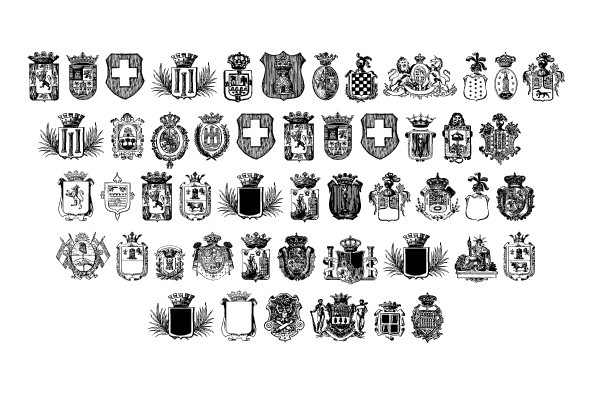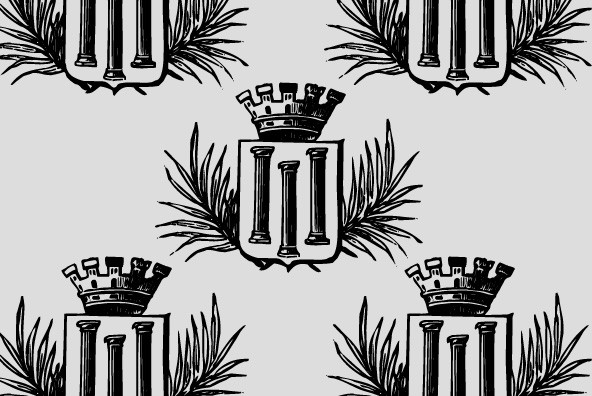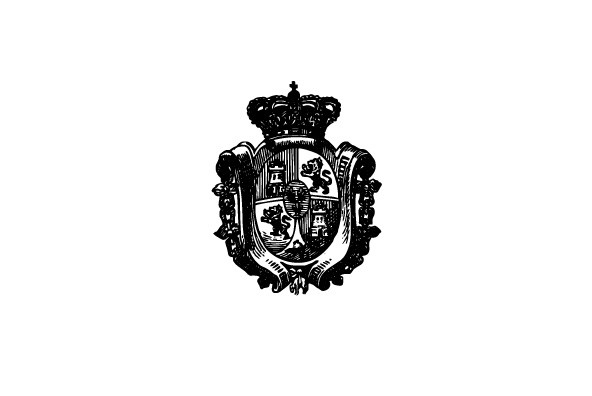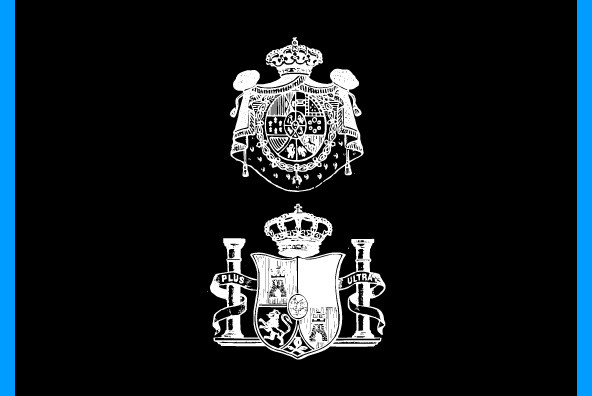
GansBlasones images were selected from the vignettes catalog from Fundicion Gans published in 1920. Represents heraldry devices, Spanish city seals, world nations seals, coats of arms, helms, crowns, crests etc.